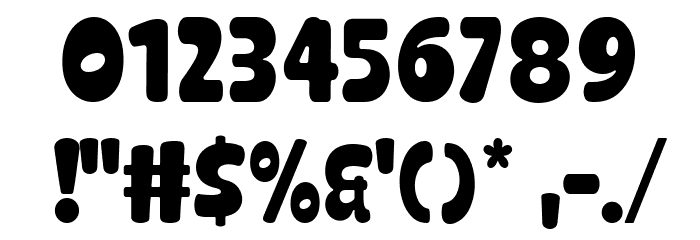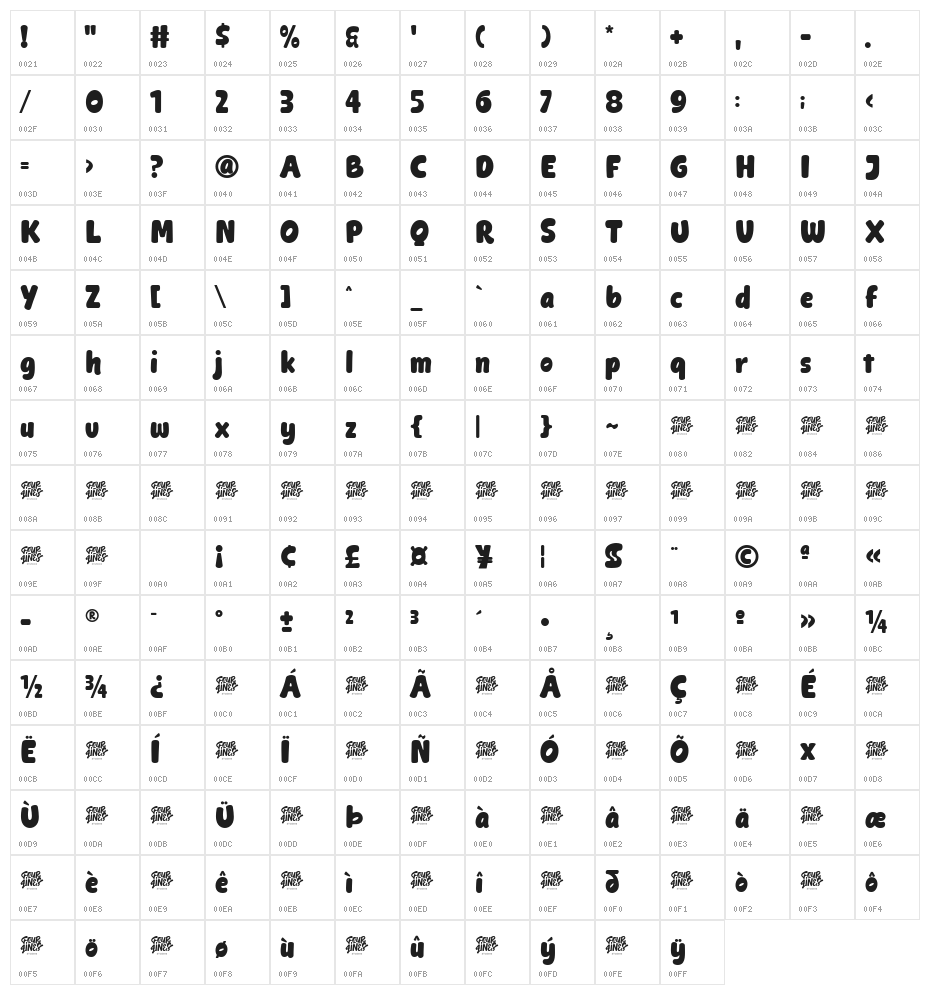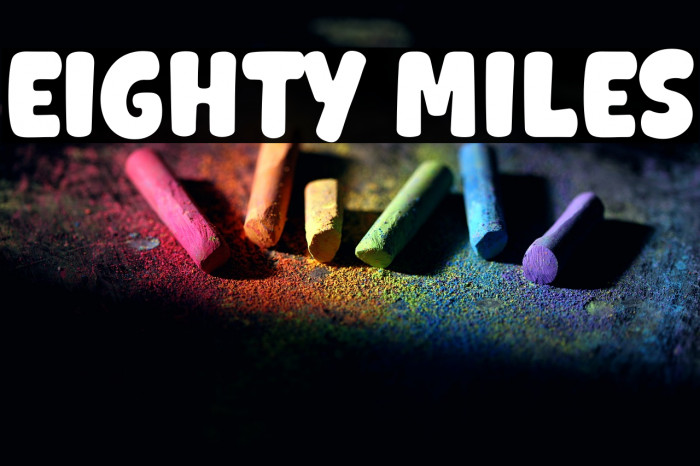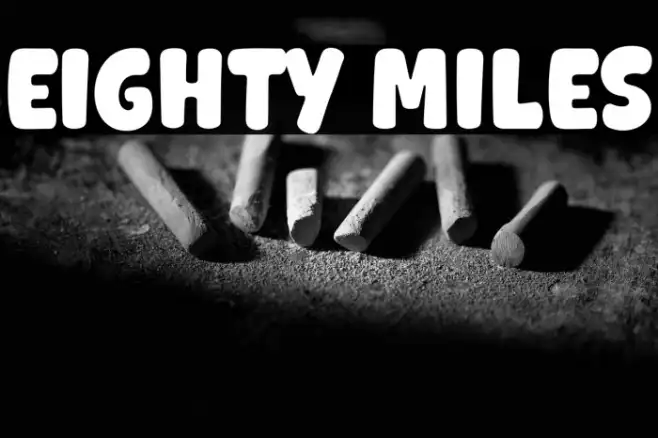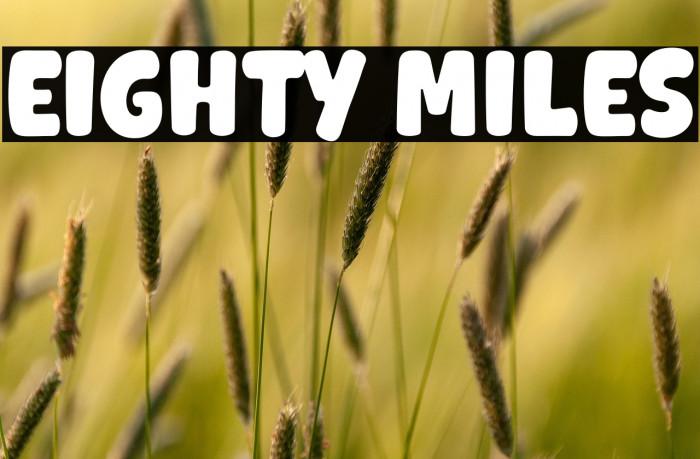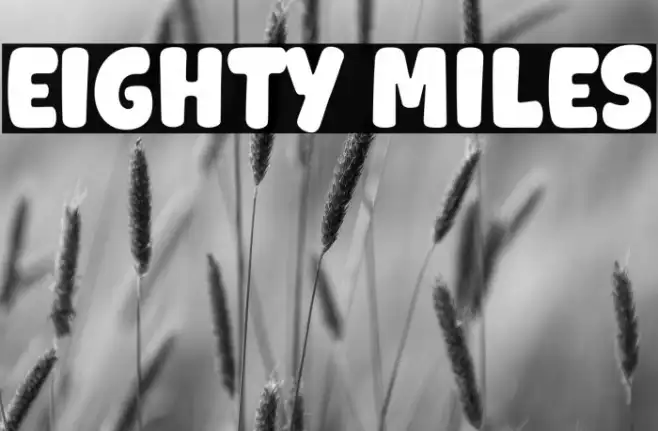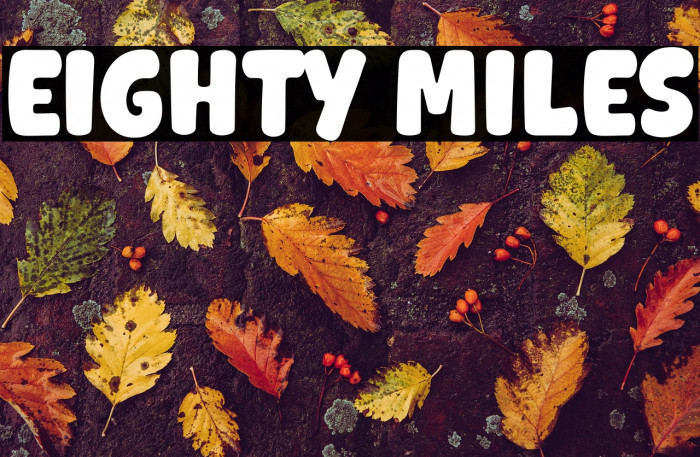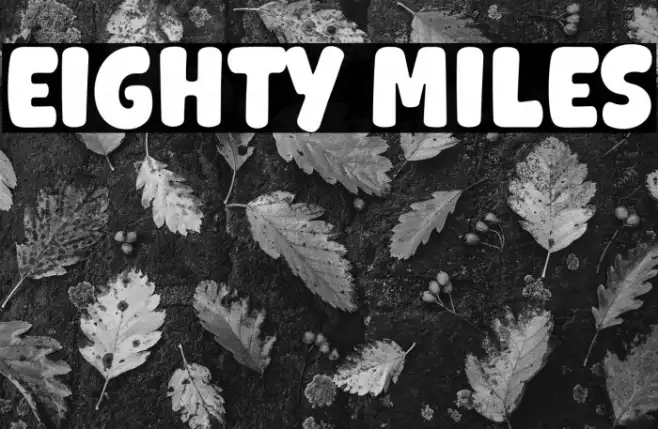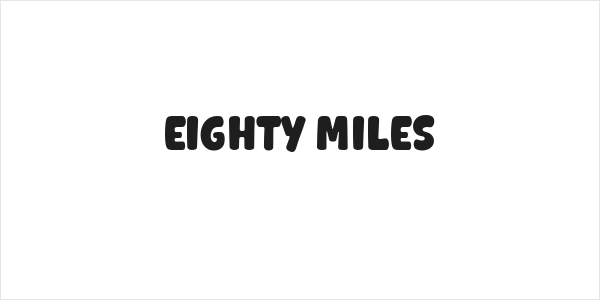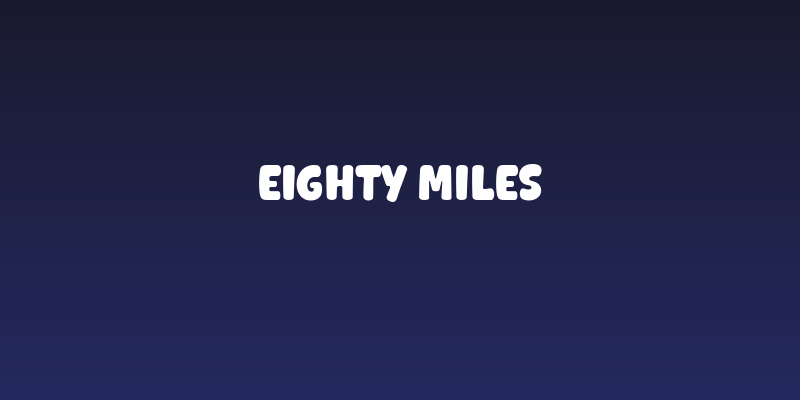
EIGHTY MILES Font
EIGHTY MILES Description
This font features a bold, playful style with rounded edges and a bubbly appearance. The characters are thick and uniform, giving a sense of fun and approachability. The uppercase and lowercase letters maintain a consistent weight, while the numbers and special characters complement the overall design with their rounded forms. This font's style is reminiscent of retro or vintage aesthetics, making it suitable for projects that require a touch of nostalgia or whimsy. The boldness of the font ensures high visibility, making it ideal for eye-catching designs.
| Overall Style | Retro, Playful |
| Proposed Projects | Ideal for children's books, playful branding, retro-themed posters, and eye-catching headlines. |